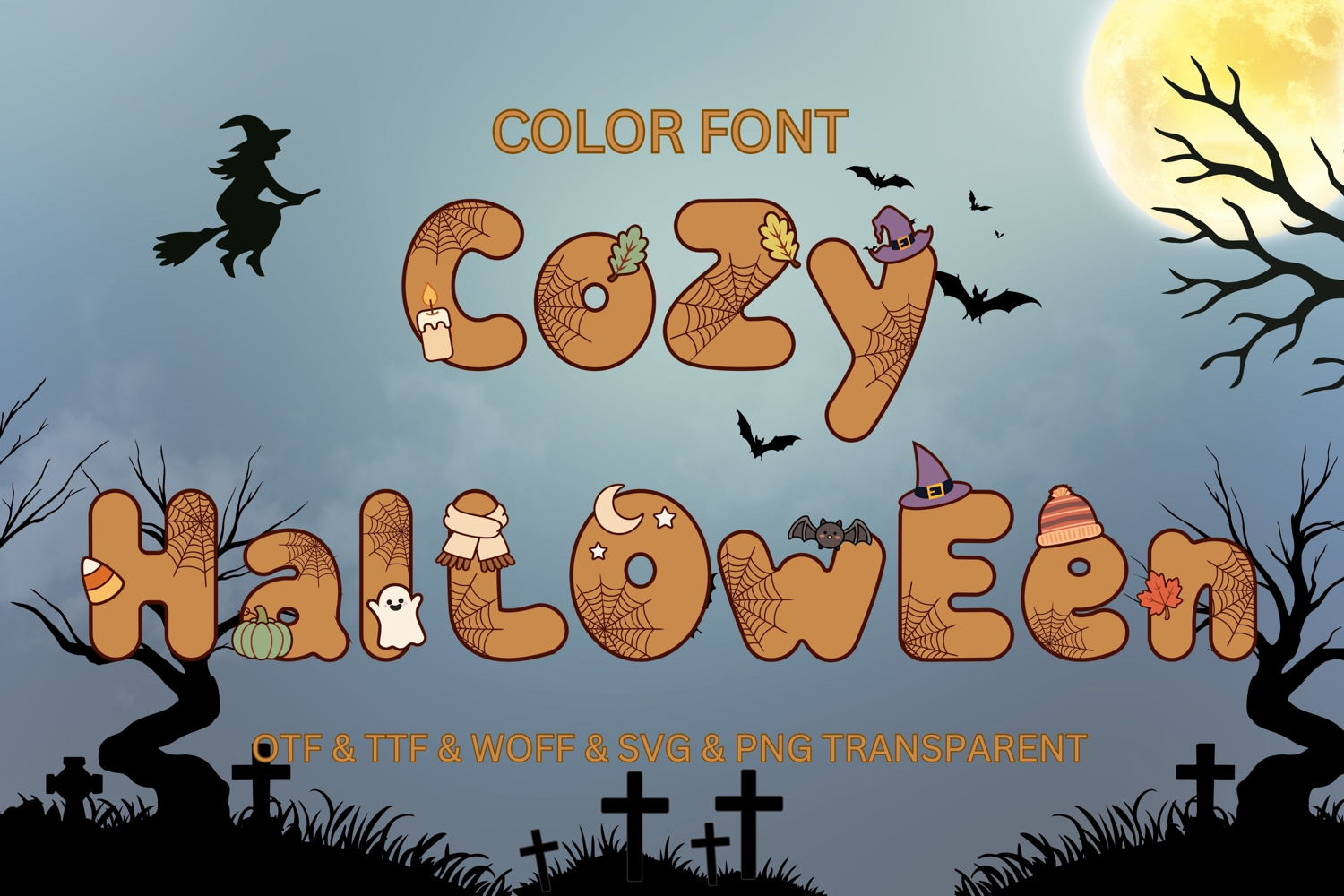
Cozy Halloween - Color Font
Cozy Halloween is a charming Halloween color font that combines the soft, rounded look of a puffy candy-style typeface with warm autumn and cozy spooky details. Each character features a playful mix of pumpkin orange, caramel, cream, sage, dusty teal, plum, and cocoa tones, accented with adorable Halloween elements such as ghosts, bats, pumpkins, witch hats, candles, autumn leaves, spider webs, scarves, and cozy seasonal motifs.
The soft, chunky letterforms and hand-drawn decorations give this font a whimsical, nostalgic feel while keeping it versatile and easy to use. It’s perfect for Halloween crafts, sublimation designs, T-shirts, stickers, invitations, party decorations, seasonal branding, and cozy fall-themed artwork. The set includes uppercase letters, lowercase letters, numerals, and decorative punctuation for creating fun and expressive Halloween designs.